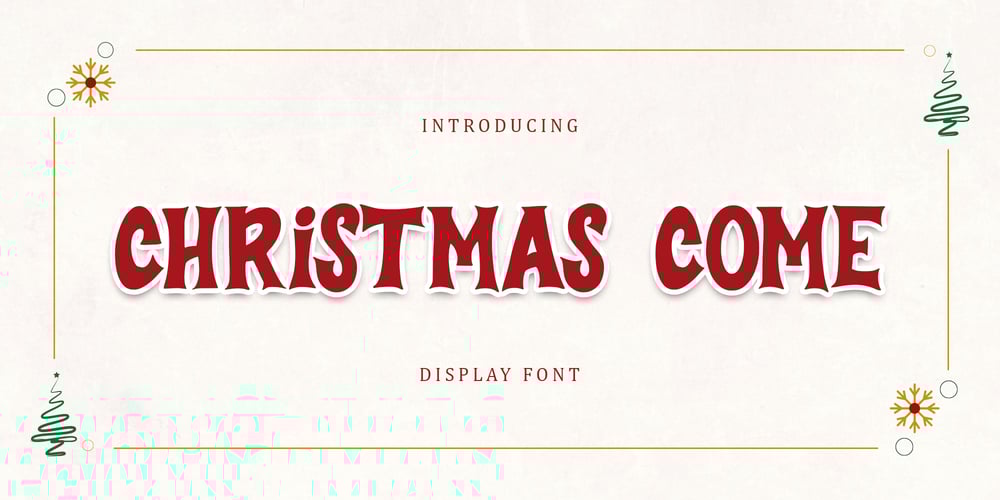
Christmas Come
Christmas Come font
Christmas Come Font Family was designed by Alif Ryan Zulfikar and published by Sakha Design. Christmas Come contains 2 styles and family package options. Christmas Come is a joyful and celebratory display font. Whether you’re using it for crafts, digital design, presentations, or making Christmas cards, this font has the potential to become your favorite go-to font, no matter the occasion!